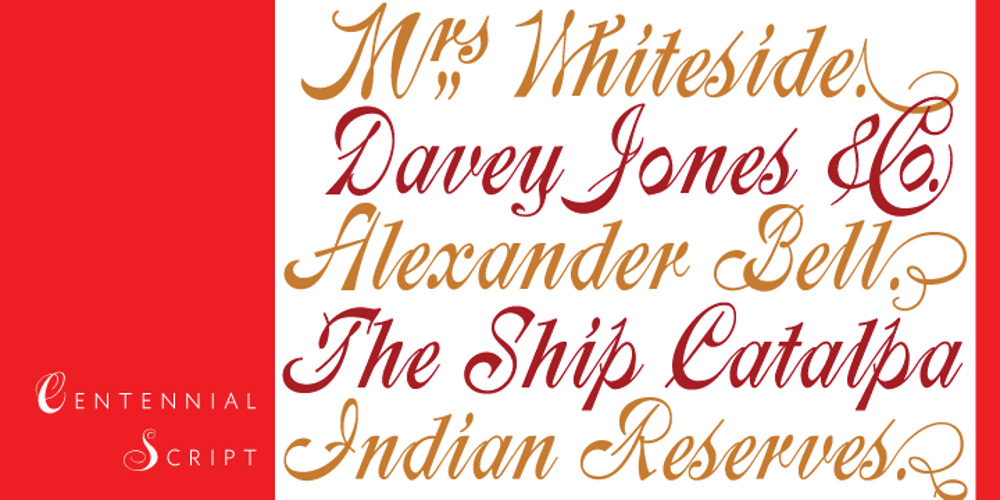
Centennial Script Font Family was designed by Hermann Ihlenburg, Rebecca Alaccari and published by Canada Type. Centennial Script contains 1 styles and family package options. Centennial Script was designed and cut by Hermann Ihlenburg in 1876 (the centennial of American independence, hence the typeface’s name) for the MacKellar, Smiths & Jordan foundry in Philadelphia. Ihlenburg was then only 33 years old, and these beautiful forms put him on his way to become the most prolific and innovative deco, ornamental and script typeface designer and punch cutter of the nineteenth century. In trying to be a true homage to the history of the new world, Centennial Script transcends its then-contemporary deco fashion to embrace script elements historically similar to lettering found on maps or political documents of the 18th century. Letters like the p and s extend themselves high and mighty to accentuate words and lines of text in a fancy hand-drawn manner. The dots on the i and j are those of a careful scribe who acknowledges the importance of the document being lettered. The lowercase letters connect with two slight angular motions of the hand, also very carefully and elegantly. Even the ligatures and ending swashes Ihlenburg made for this face were reminiscent of a mapmaker’s patient hand, though Ihlenburg’s elegant touch in them cannot be mistaken. Although Centennial Script was one of the few Ihlenburg faces to make it to film type technology, the transition was neither credited nor faultless. The film type version was a bit sloppy in the way the connectors were made, so the lowercase needed a lot of manual work to typeset properly. To alleviate such waste of time for the user of this digital version, the connectors were redrawn according to the original metal ones made by Ihlenburg himself, and tested thoroughly in print to ensure the quality of the typeface’s flowing cursive nature. This wasn’t an easy task, and very time-consuming, since the changing angles on both ends of the connection made it impossible to escape from having to build every lowercase letter with both left and right connectors that would fit with the rest of the letters. This is one typeface that couldn’t be revived in any other manner than the way it was originally made, regardless of more than 130 years of technological advances since the face was designed. Centennial Script comes in all popular font formats, and supports most Latin-based languages. Also included is an Alts fonts that contains alternates, ligatures, snap-on swash endings, some ornaments, as well as a complete set of the lowercase without left side connectors, for a more natural combination when following a majuscule, or just in case the user finds it fit to set the copy in a non-connecting script instead of the face’s original connected flow. Centennial Script Pro, the OpenType version, combines the main font with the Alts font in a feature-packed single font. Use the ligature feature to set wordmarks like Mr, Ms, Mrs, Dr, and &Co, the stylistic alternates feature to replace some letters with their alternative forms, the contextual alternates feature for better uppercase-lowercase sequences, and the titling feature to set your text in a disconnected script. Centennial Script is the only script we currently know of that can be set connected or disconnected simultaneously, either using the titling feature in the OpenType Pro version, or manually in the other formats.